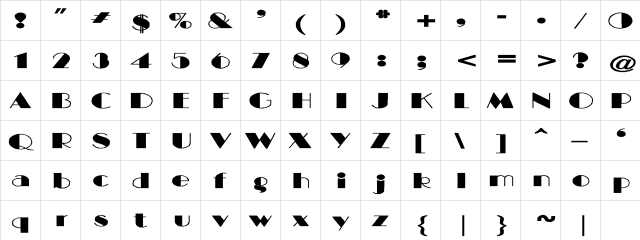
BIGCITY-Normal Extended Regular
Design Context for BIGCITY-Normal Extended Typeface
BIGCITY-Normal Extended is a composed and adaptable typeface that performs quietly and consistently across a wide range of design contexts.